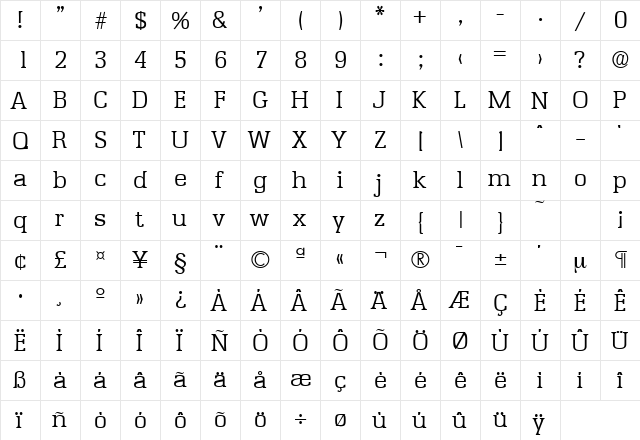
Enschede-Serial-Light Regular
Design Context for Enschede-Serial-Light Typeface
Enschede-Serial-Light is a composed and adaptable typeface that performs quietly and consistently across a wide range of design contexts. The delicate stroke weight brings airiness and refinement to layouts.